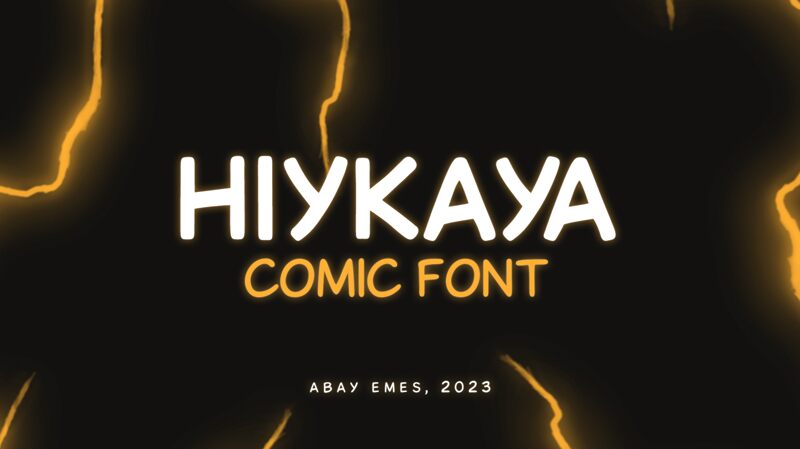
Hiykaya Regular
Hiykaya font is a sleek and modern typeface from Abay Emes. This free font uniquely captures a handwritten style with its casual elegance and artistic flair, making it an excellent choice if you’re after something more playful and dynamic. Having been inspired by comic book designs, the elements of Hiykaya excellently stand out and grab attention.
by Abay Emes